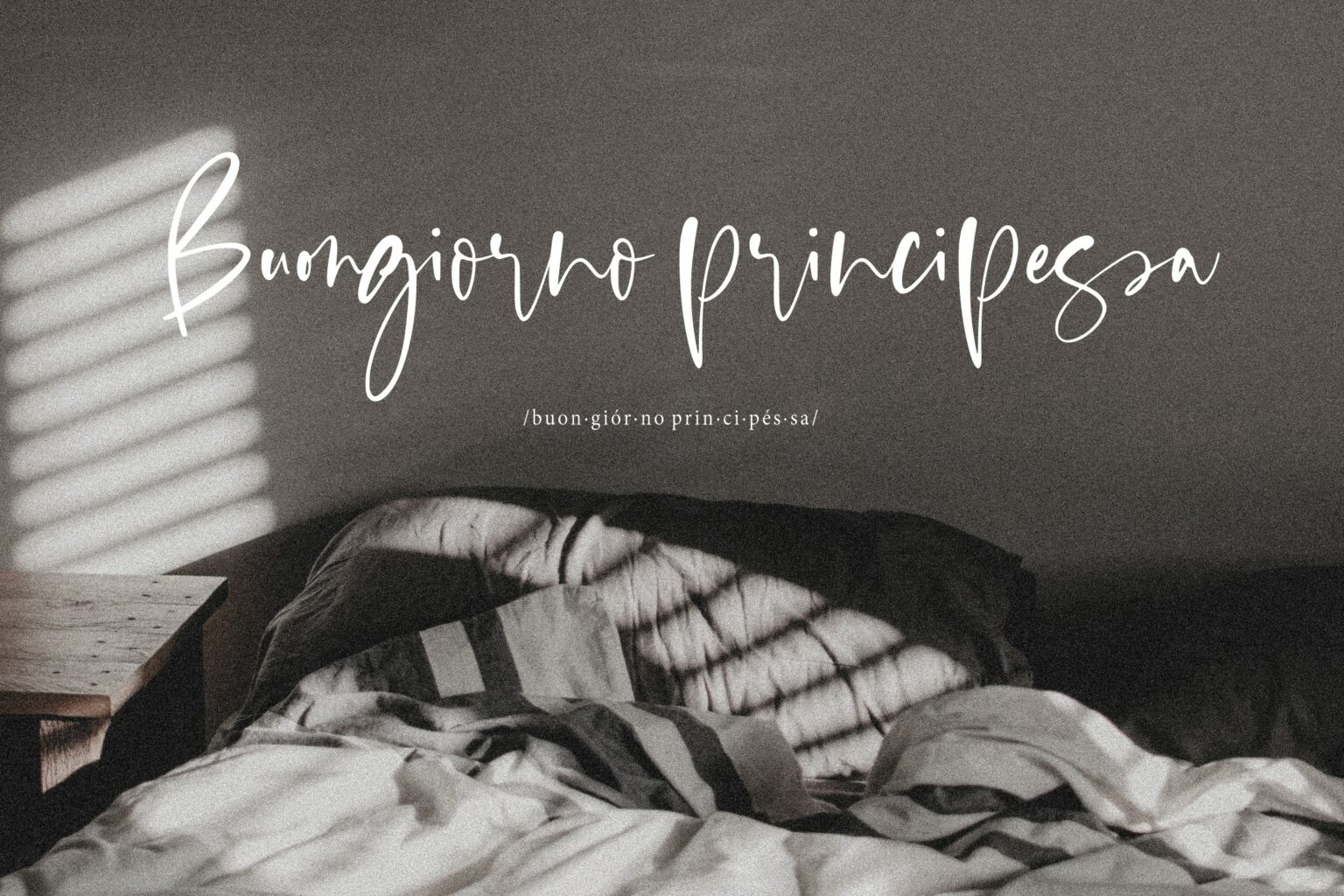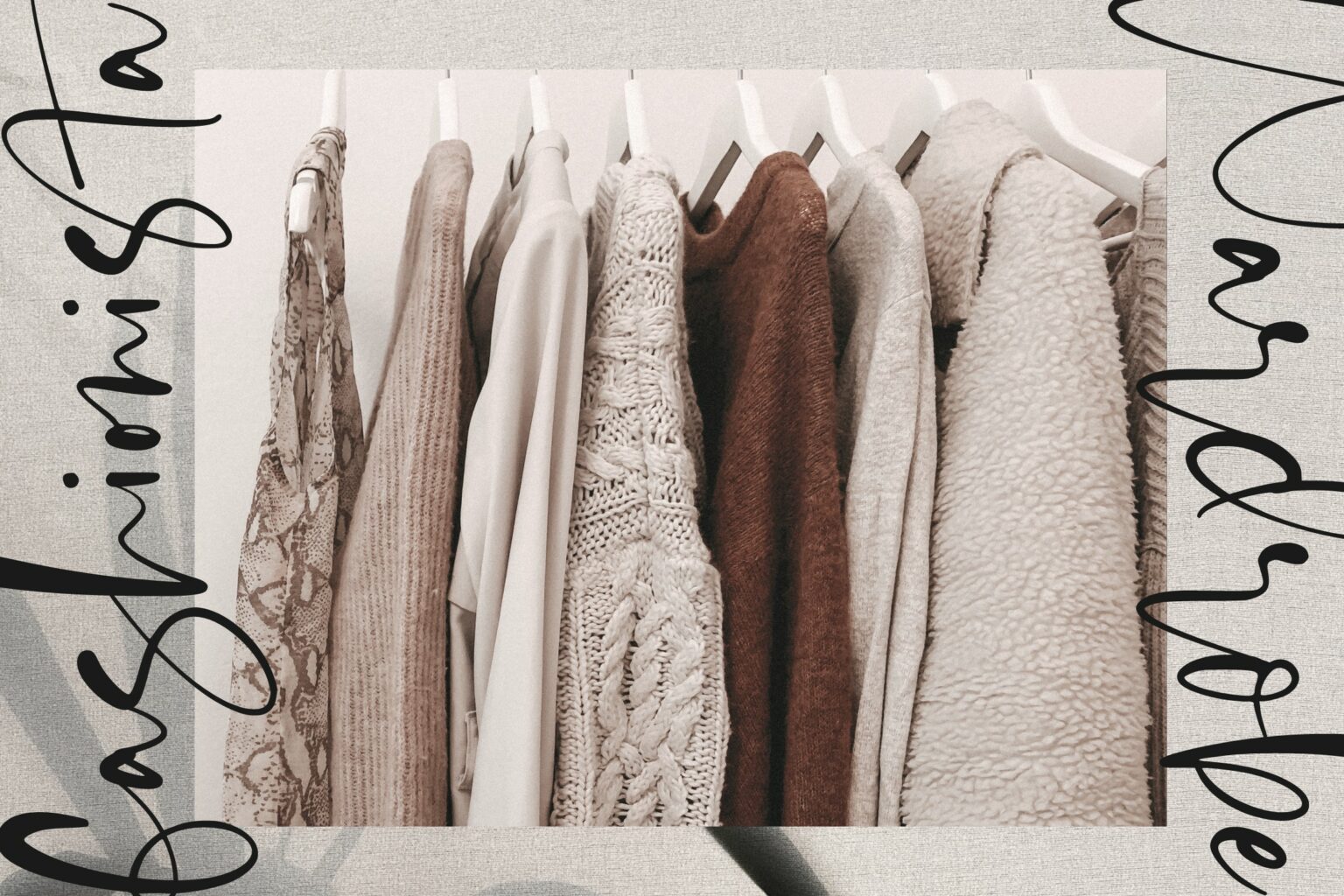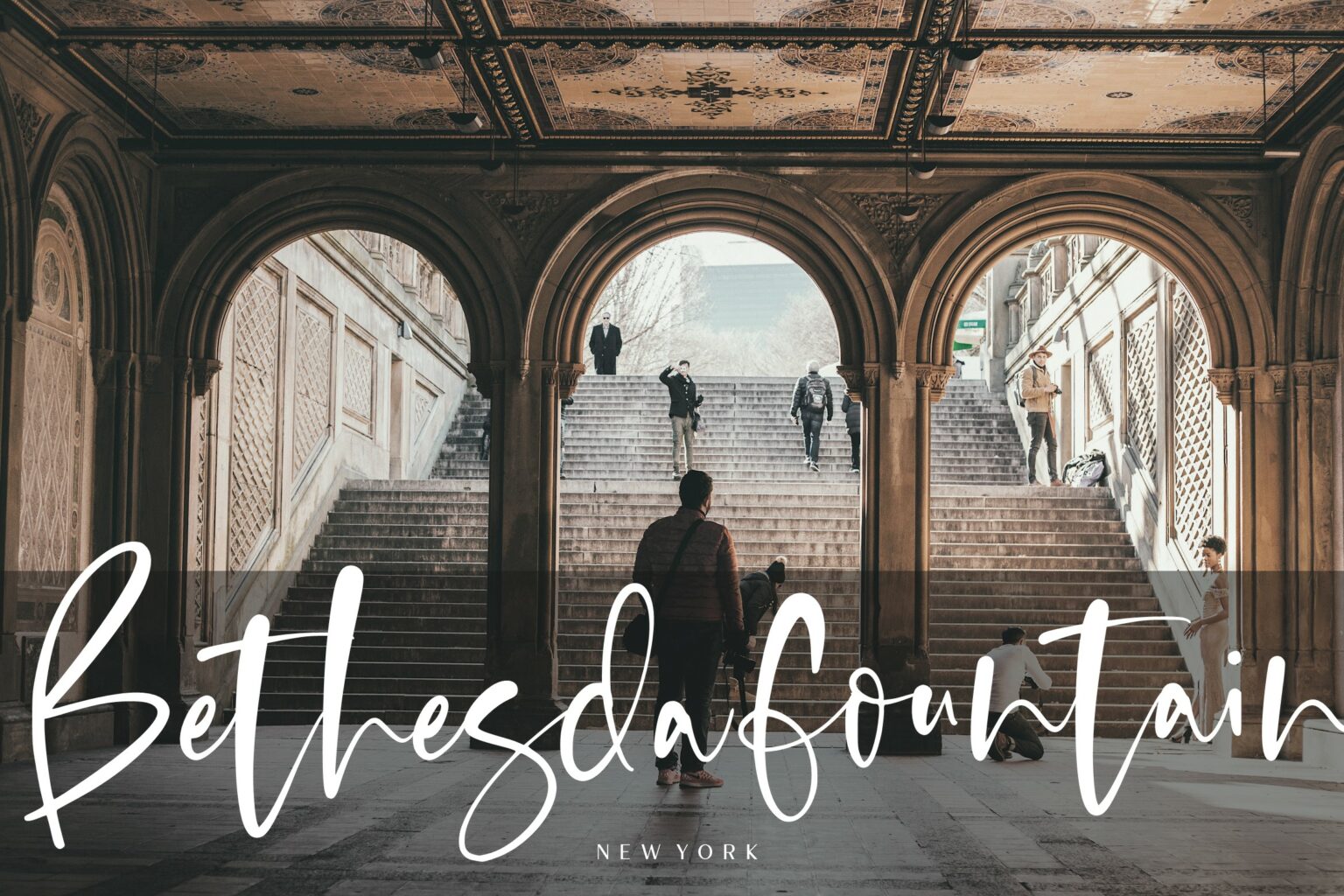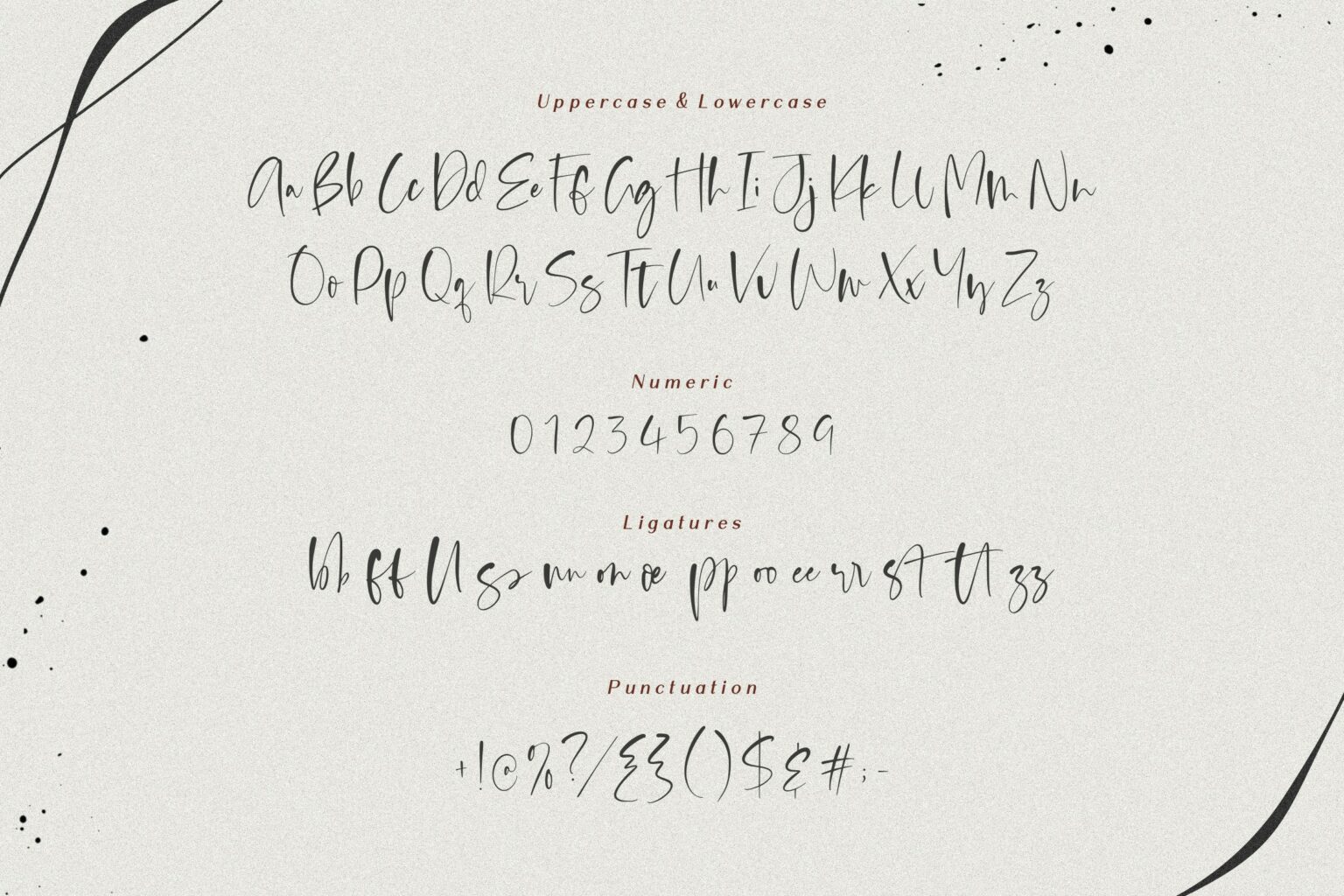
Scrabble Script Font
This is warm, eye-catching, and unique handwritten font. This font is suitable for handwriting logos, T-shirts, merchandise, quotes, social media posts, advertising, and a lot more! Scrabble comes with an accent language and ligatures. This purchase includes a TTF, OTF, & WOFF font file.